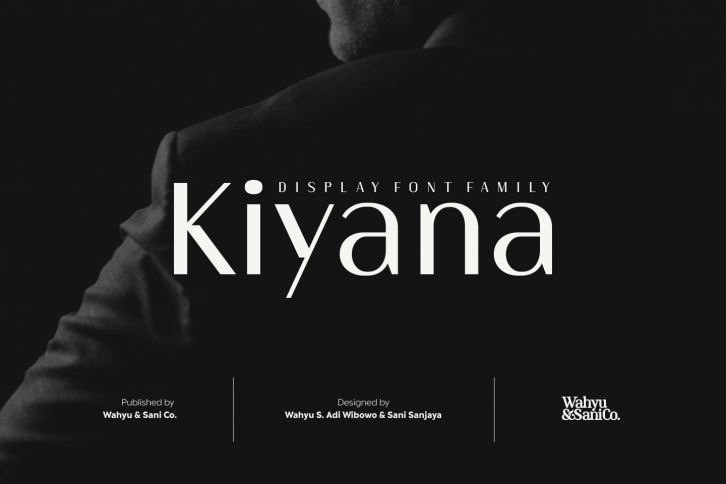
Kiyana Display is contemporary high contrast display sans serif inspired by the beauty and elegance of modern style typefaces. Comes in 9 weights from thin to black with uprights and obliques. Each font contains 300+ glyphs which covers major Western and Eastern European Latin languages. Kiyana Display would be suitable for a range of display usages (logo, poster, headlines, quotes, etc.).